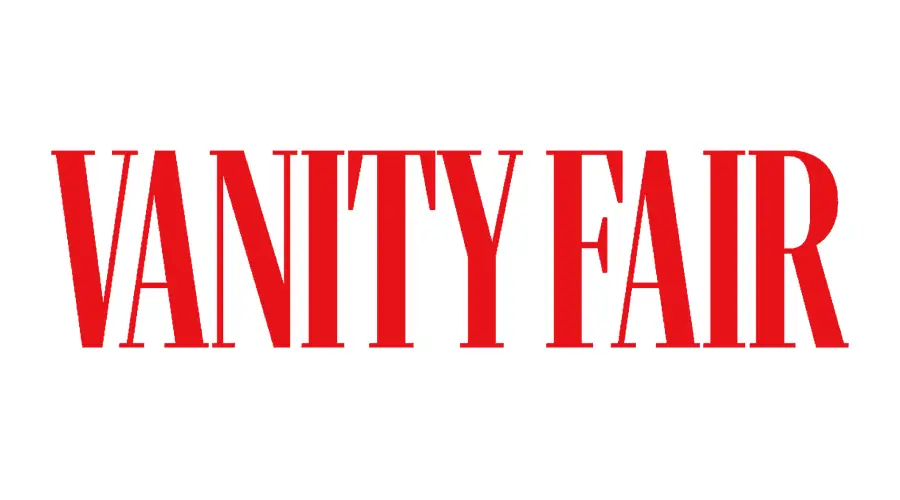
The Vanity Fair Font is a distinctive typeface often associated with the iconic Vanity Fair magazine, a publication renowned for its coverage of culture, fashion, politics, and current affairs. The font exudes elegance and sophistication, perfectly aligning with the magazine’s upscale and artistic brand identity.
Vanity Fair CondΓ© Nast by Giampietro Bubola – This is the most similar font used in the Vanity Fair logo.